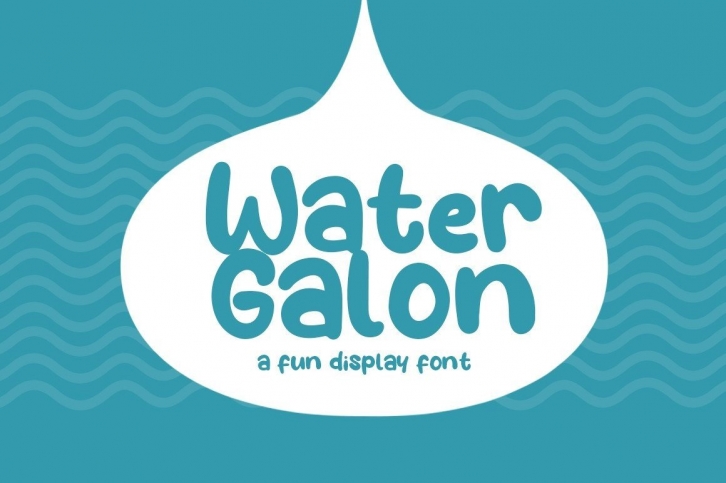
Water Galon is a fun and cool display font. Whether you use it for cartoon-related designs, children’s games, or just any creation that requires a playful touch, this font is the perfect choice for your designs!